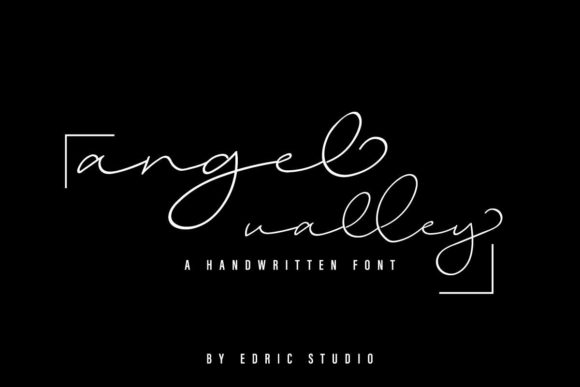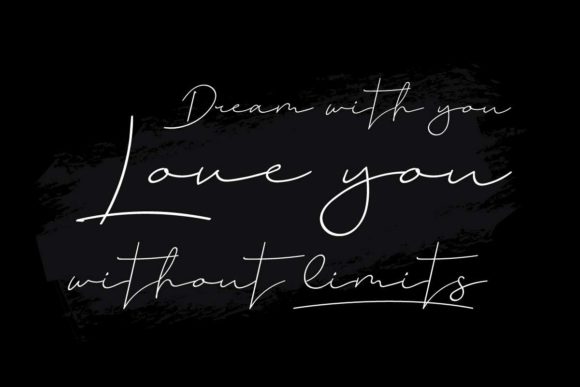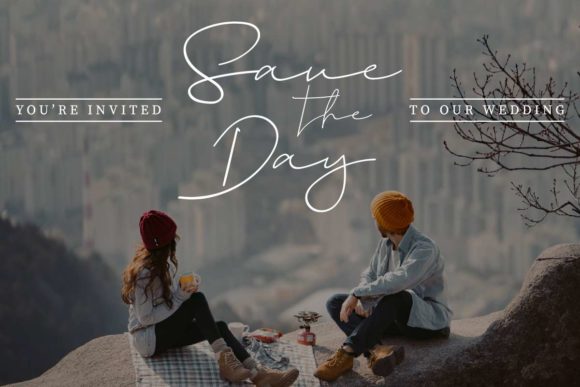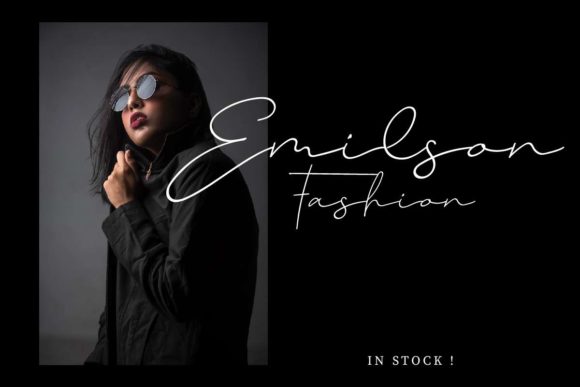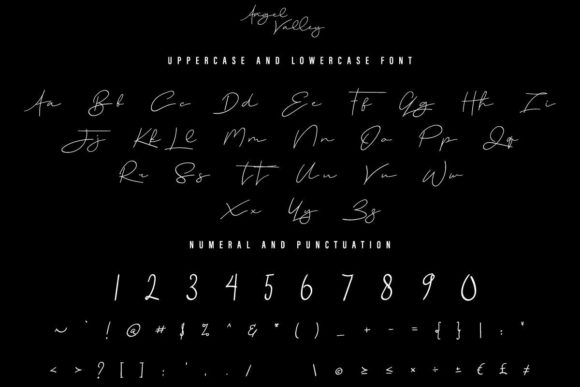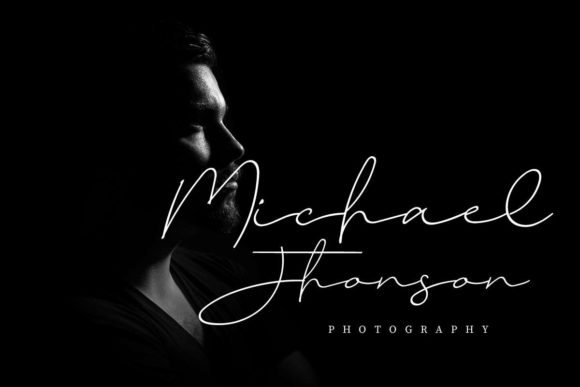
The Sweet and Romantic Angel Valley Font: A Designer’s Delight
I’ll never forget the moment I stumbled upon the perfect font for a wedding invitation project. I had been searching for what felt like hours, trying out font after font, but nothing seemed quite right. That was until I discovered Angel Valley, a sweet and romantic handwritten font that stole my heart. Its relaxed and flowing style made it incredibly fit for a wide variety of creative ideas, and I knew I had found the one.
An Honest Review of Angel Valley Font
- ✨ The font’s varying baseline and smooth lines give it a beautiful, organic feel.
- ✅ The gorgeous glyphs and stunning alternates offer endless possibilities for creative expression.
- 🎉 The font is PUA encoded, making it easy to access all the glyphs and swashes.
- 💕 The romantic and whimsical vibe is perfect for projects that require a touch of elegance and sophistication.
While Angel Valley Font is a beautiful and versatile font, there are a few things to keep in mind. ⚠️ Some users may find that the font’s handwritten style can be a bit tricky to pair with other fonts. 🤔 Additionally, the font’s eclectic feel may not be the best fit for very formal or traditional projects.
The Story Behind Angel Valley Font
Angel Valley Font was designed with love and care by a talented typographer who wanted to create a font that would capture the essence of romance and whimsy. The designer’s inspiration came from the rolling hills and lush landscapes of a picturesque valley, where the air is sweet with the scent of blooming flowers. The result is a font that is both elegant and playful, perfect for a wide range of creative projects.
| Font Name | Angel Valley Font |
| Author | EdricStudio |
| Is Angel Valley Font suitable for body text? | While Angel Valley Font is beautiful and elegant, it may not be the best choice for body text due to its handwritten style and varying baseline. It’s best used for headlines, titles, and short paragraphs. |